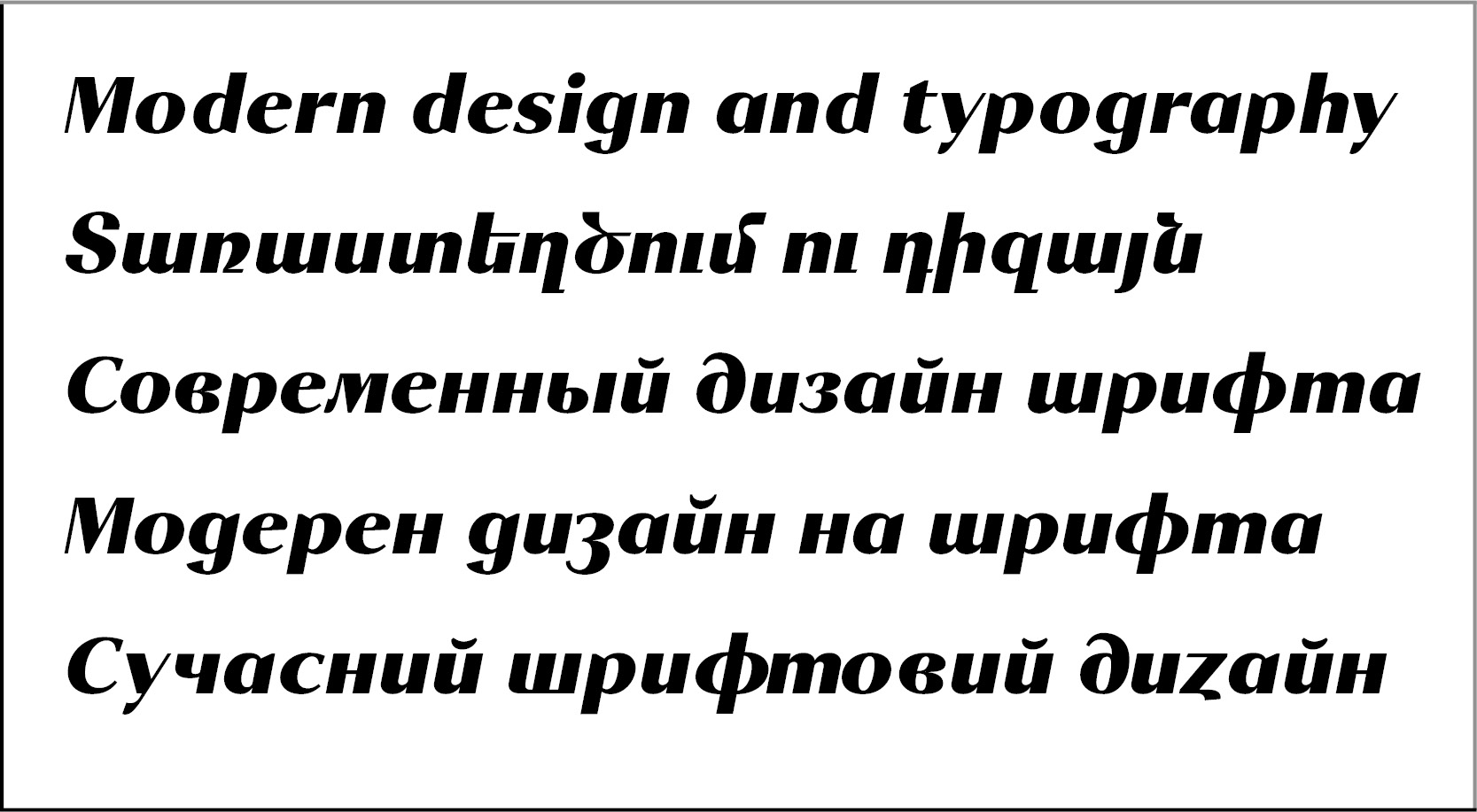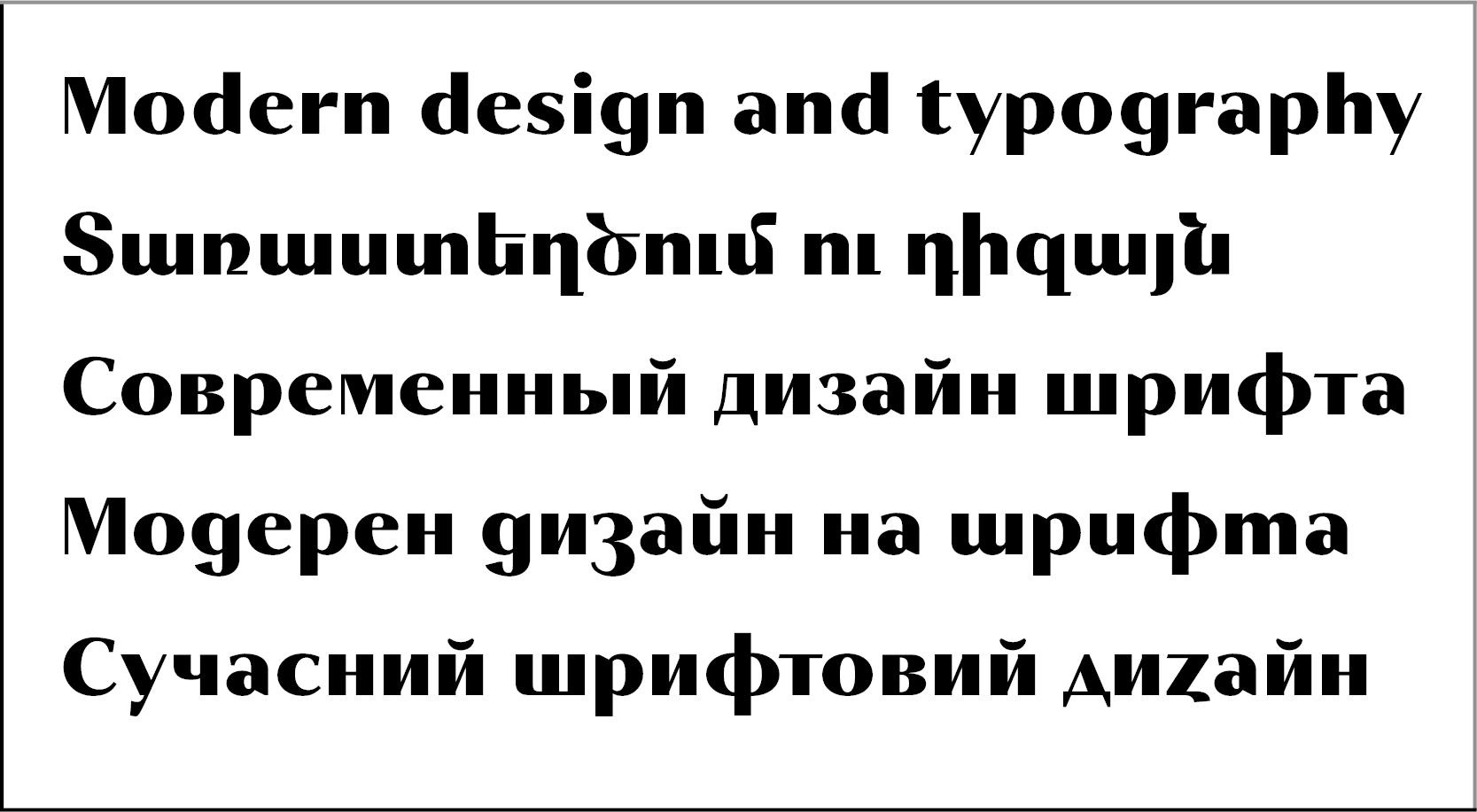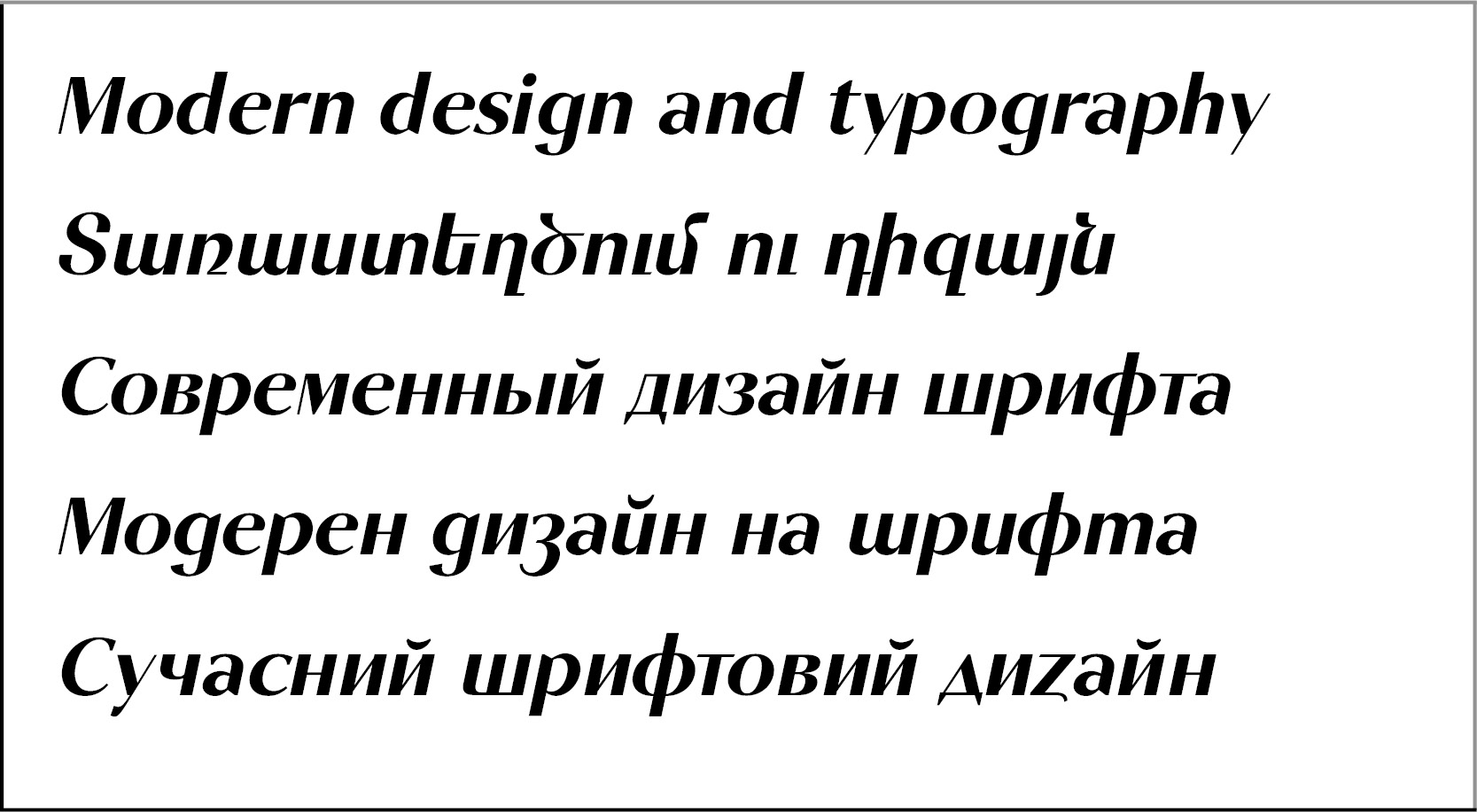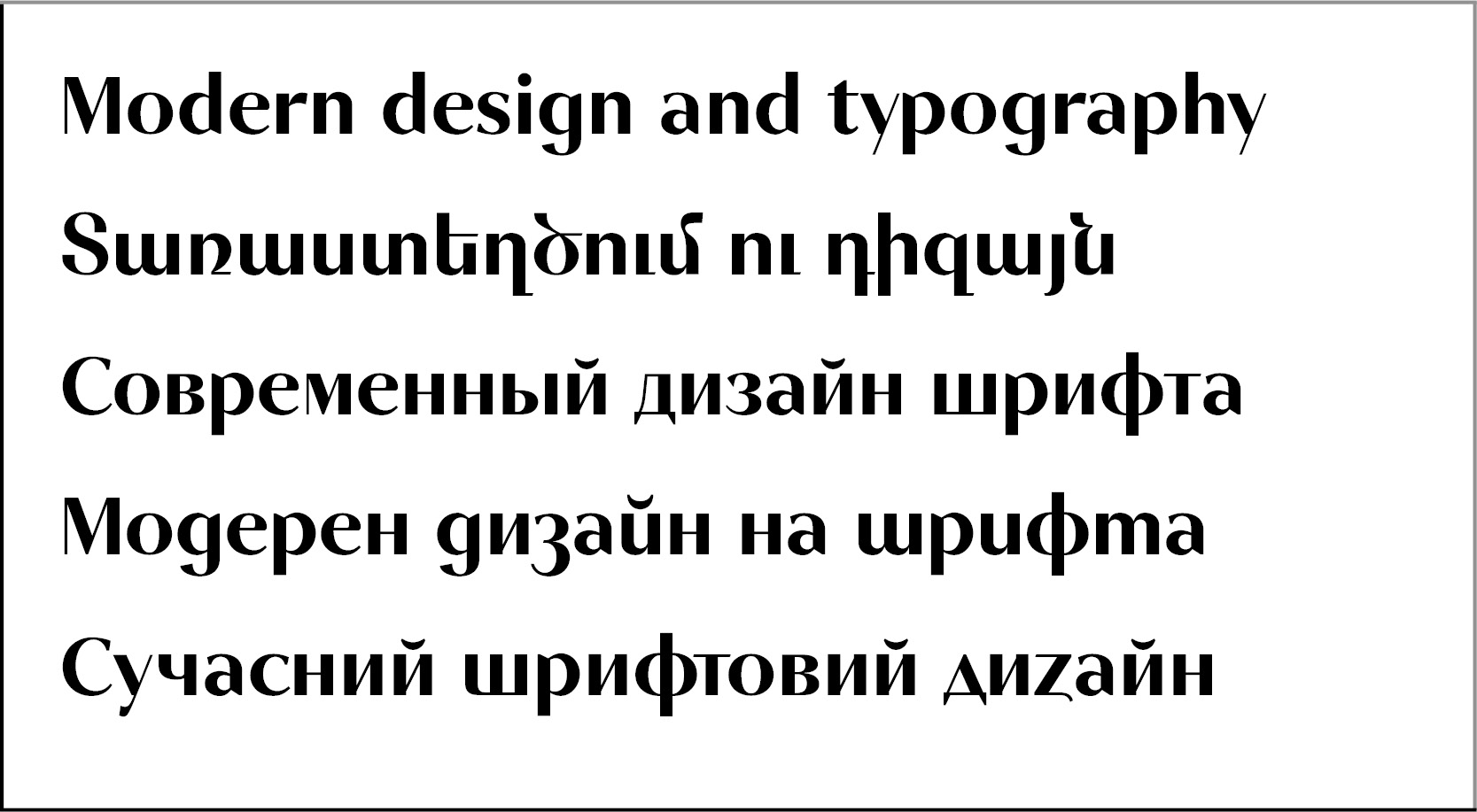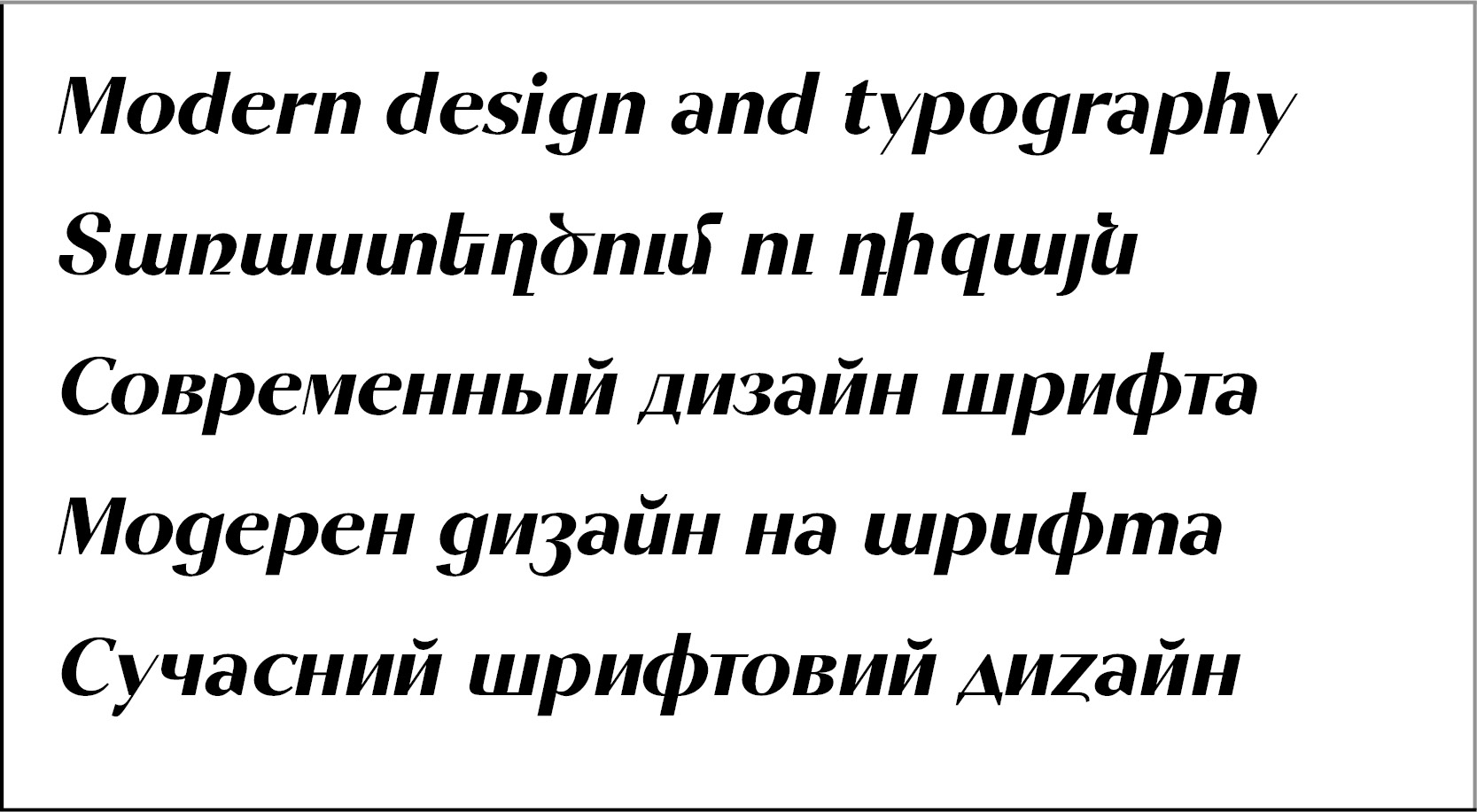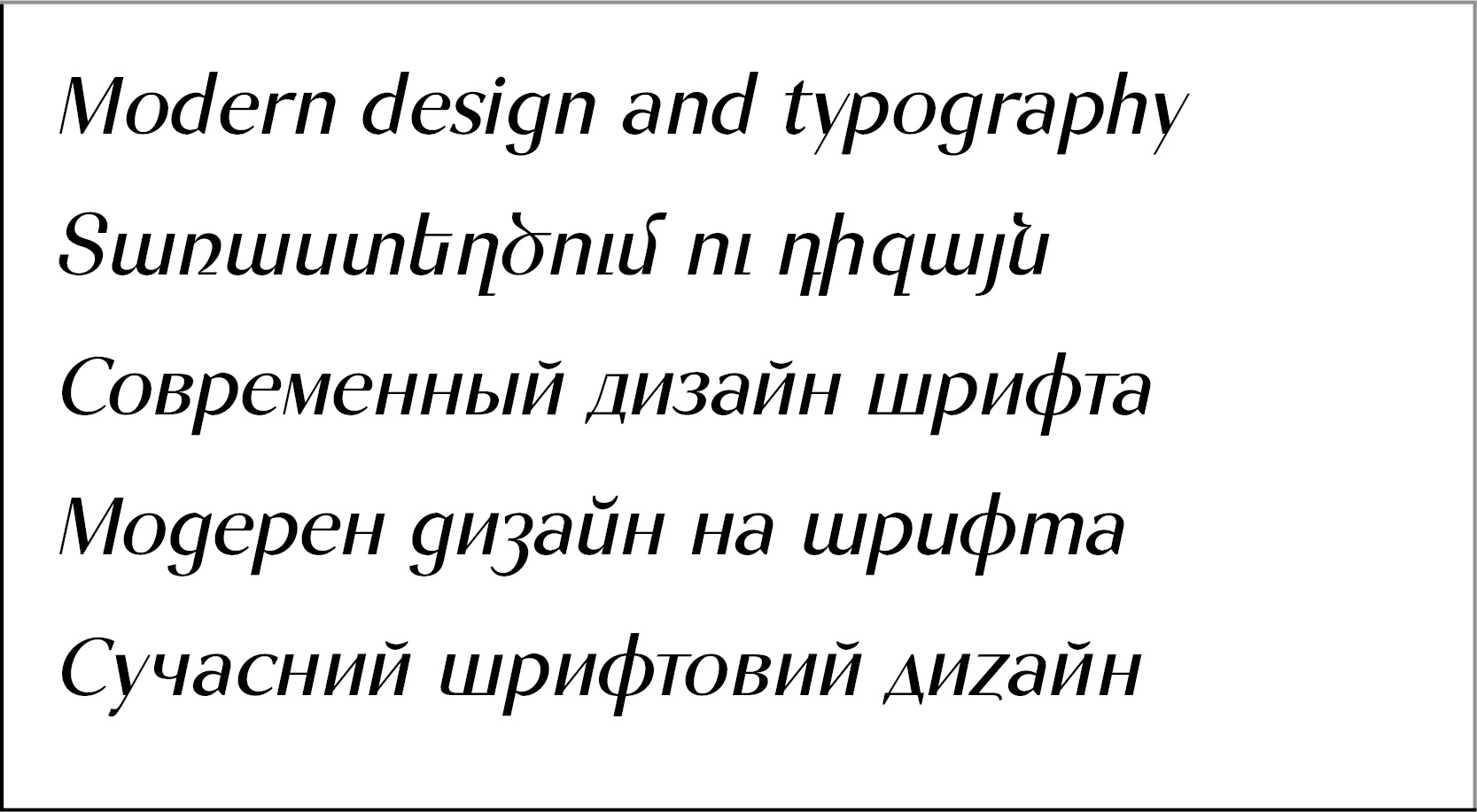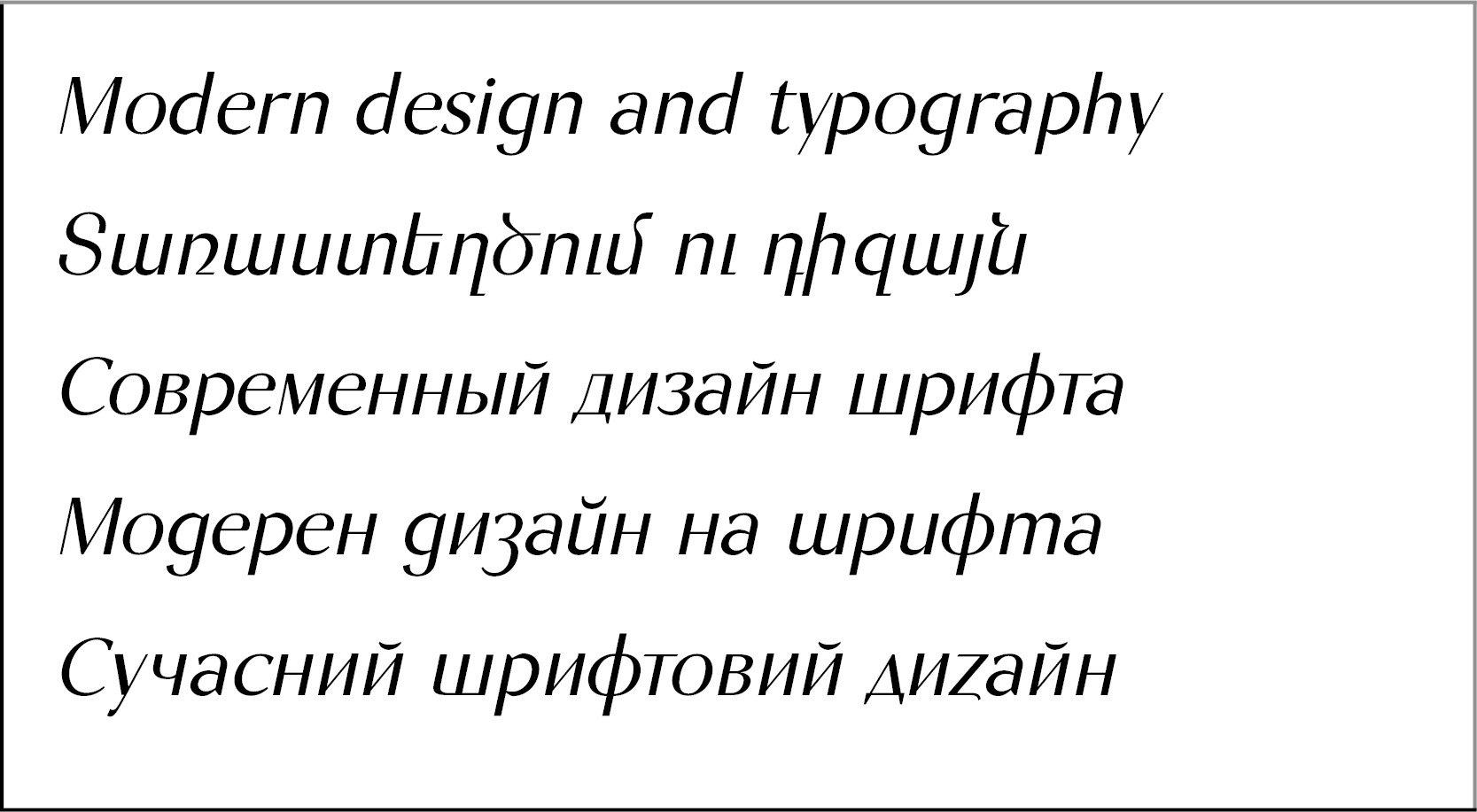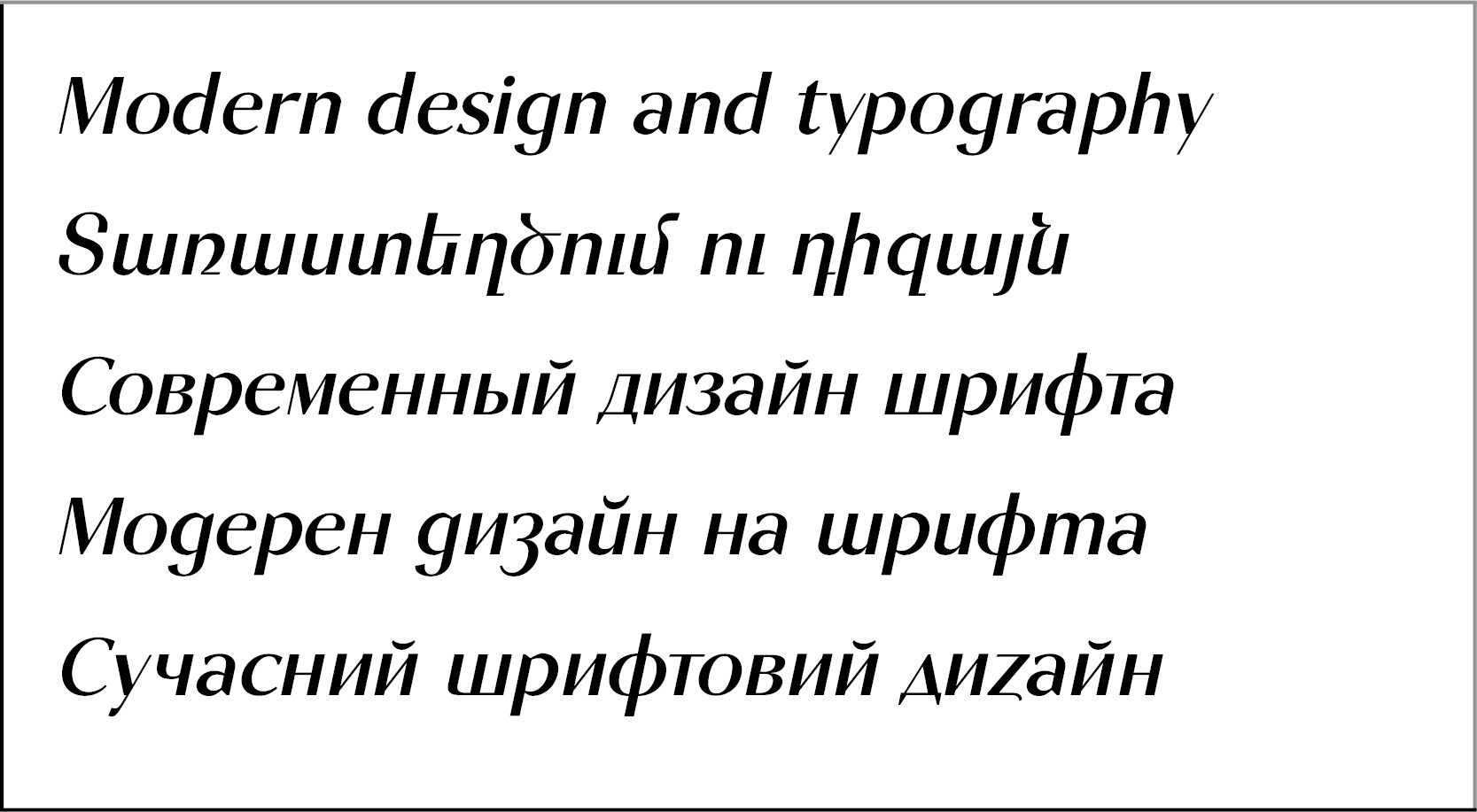
GHEA Poem
Design date: 2024
Styles: 14 (Regular, Medium, SemiBold, DemiBold, Bold, ExtraBold, Black and italics).
The Sans Serif font GHEA Poem has contrast, includes Armenian, Latin, Cyrillic alphabetic systems, also Bulgarian and Ukrainian Alternatives.
The font can be used as a text font and also title font, for books, albums, etc.